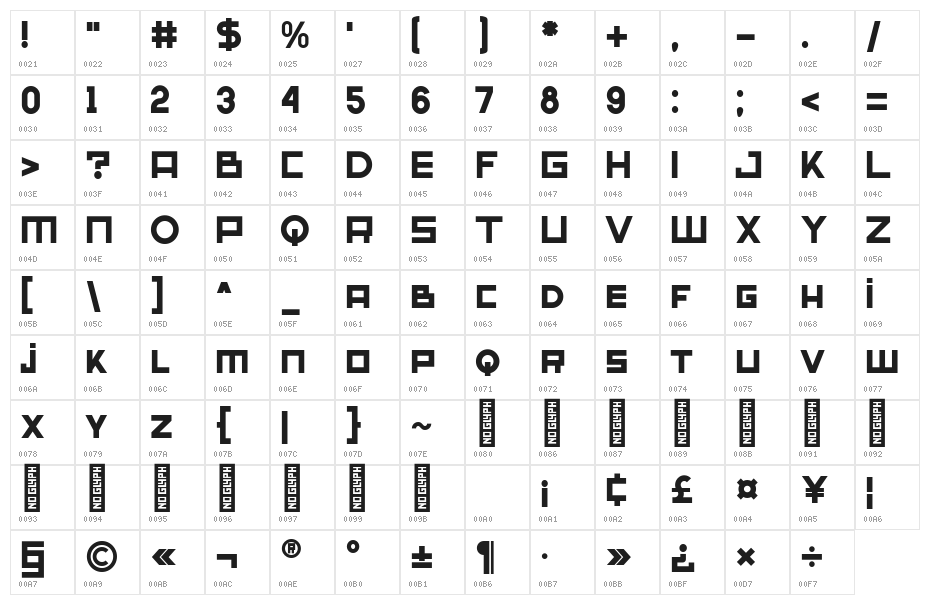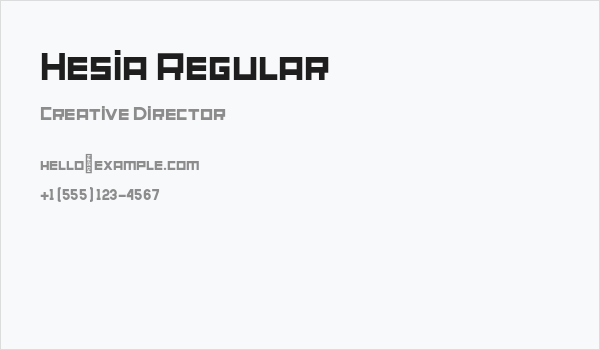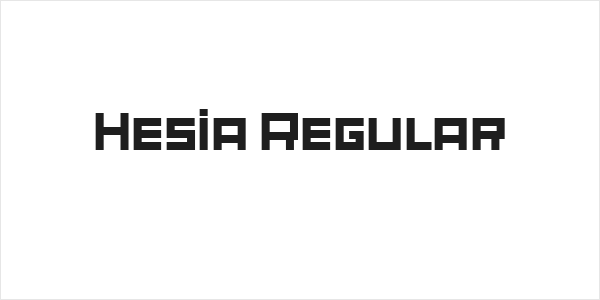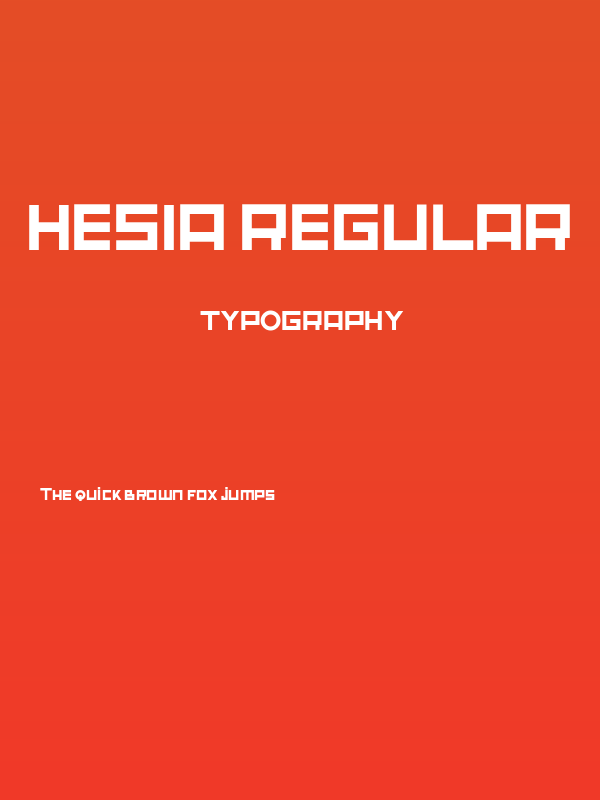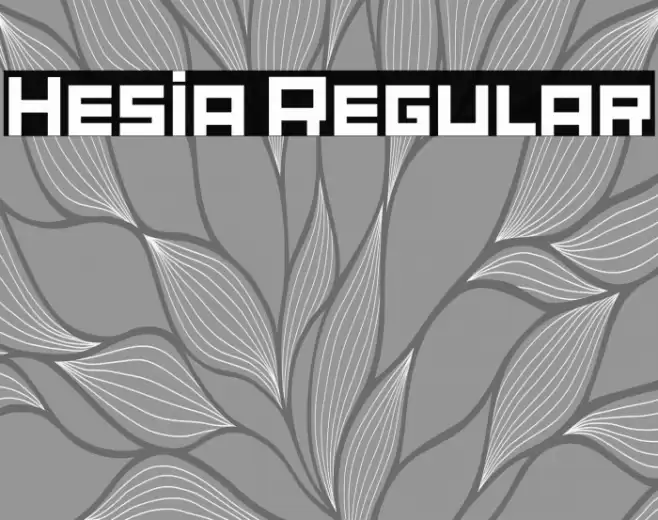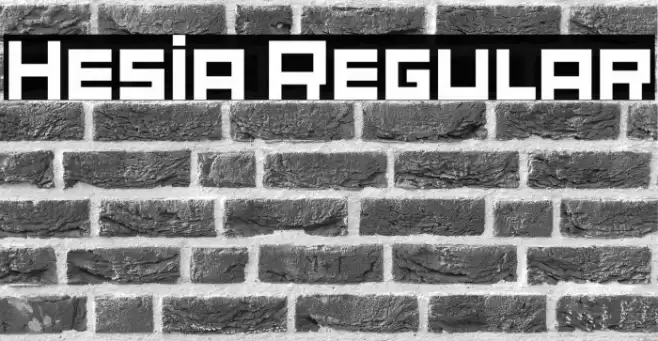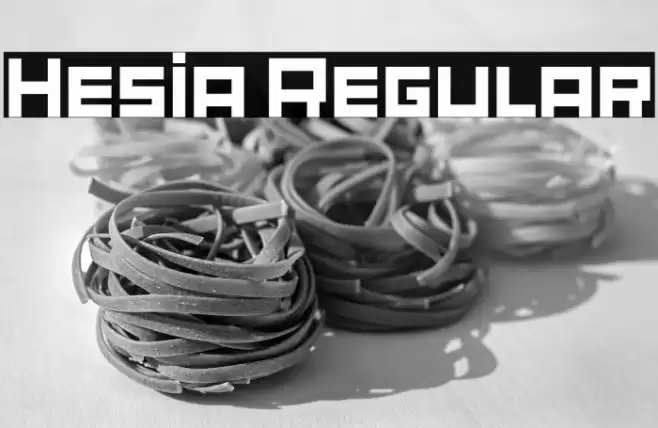
Hesia Regular Font
Hesia Regular Description
This font features a bold and geometric design, characterized by its strong, angular lines and uniform stroke width. The uppercase letters are blocky and robust, giving a sense of stability and modernity. The lowercase letters maintain the same geometric style, ensuring consistency throughout. The numerals are equally bold, with a clear and straightforward appearance. Special characters are designed to match the overall aesthetic, providing a cohesive look. This font is ideal for making a strong visual impact, suitable for various design applications.
| Proposed Projects | Ideal for branding, posters, headlines, and any design requiring a modern and impactful typeface. |